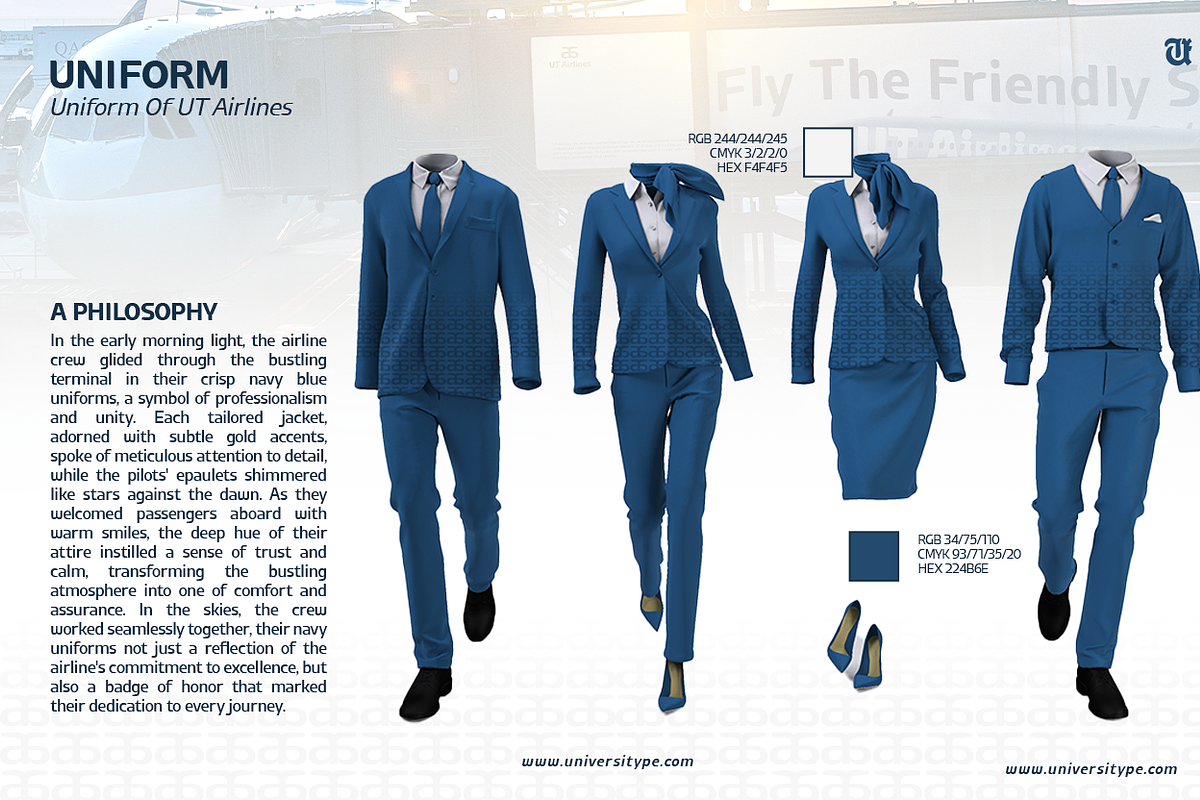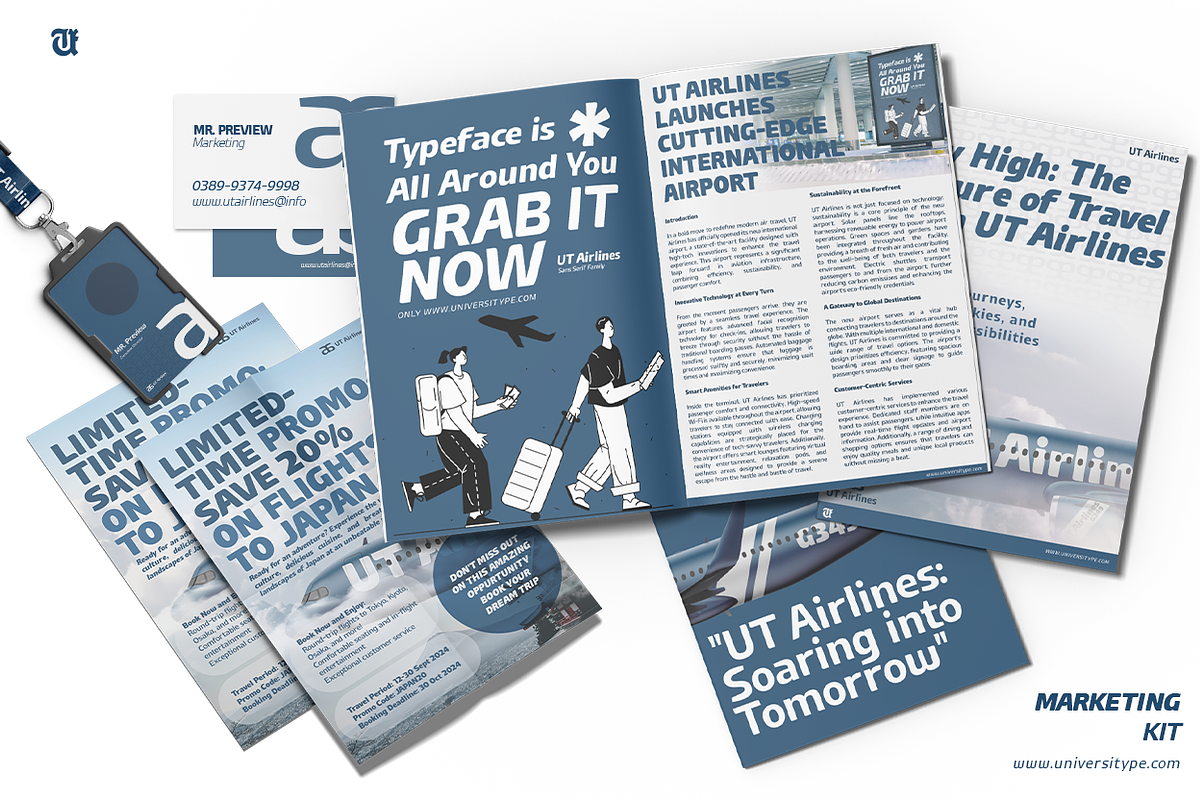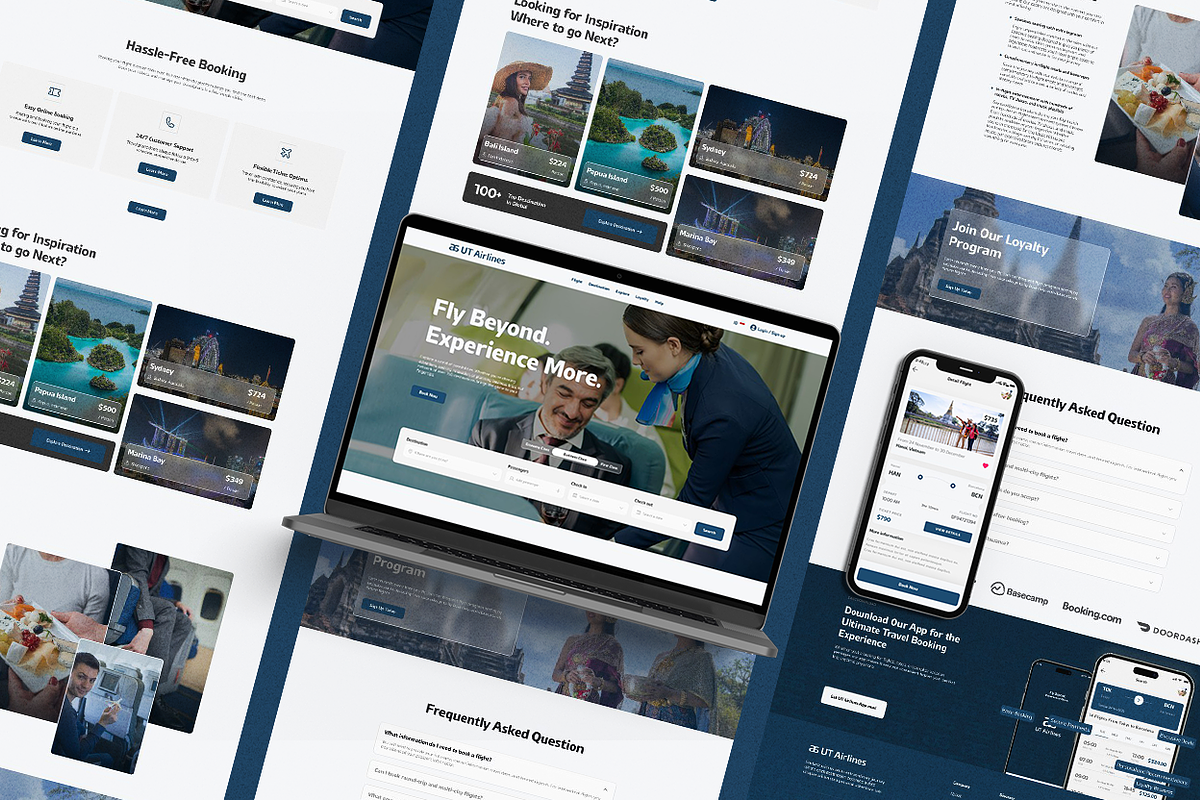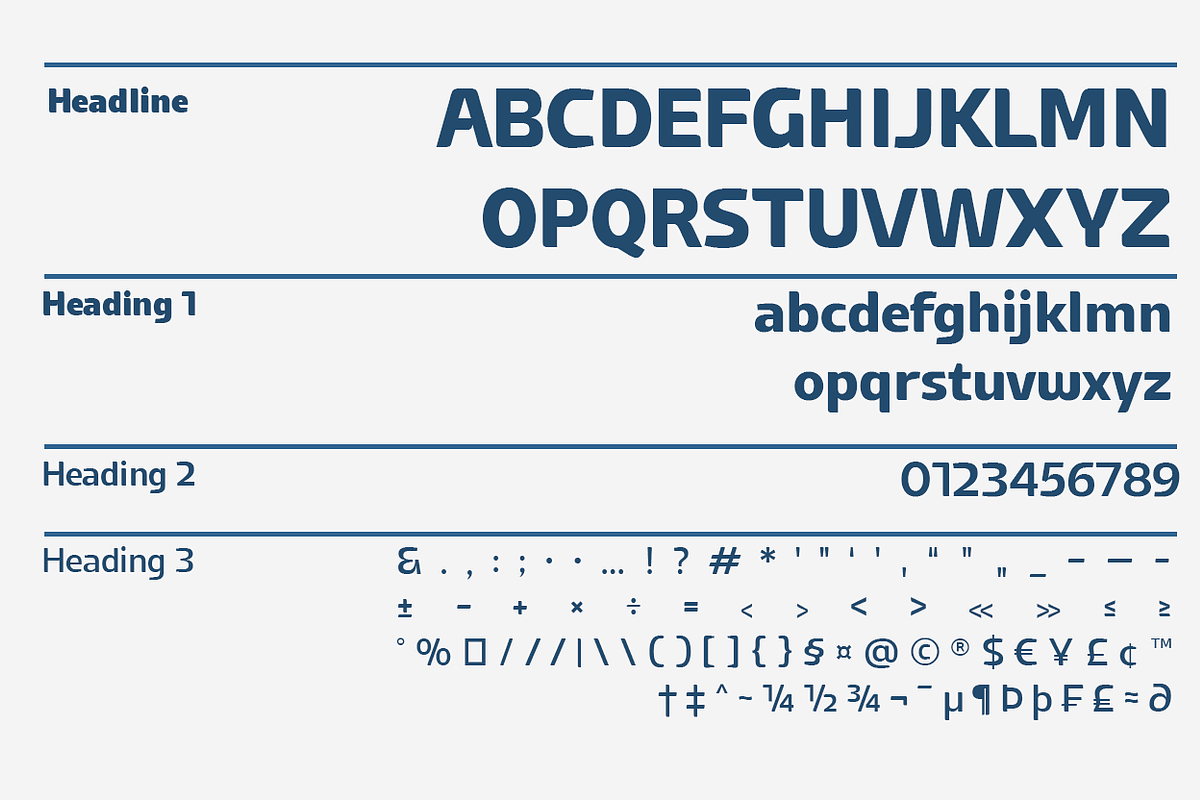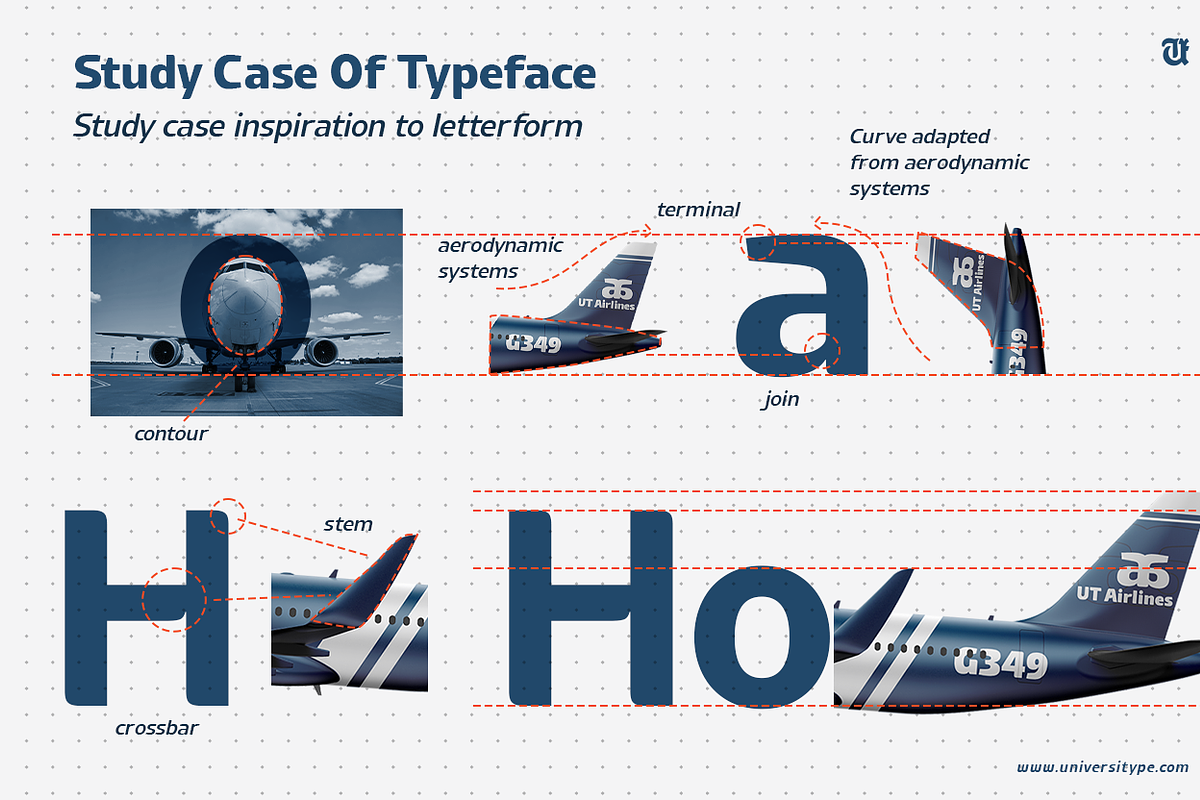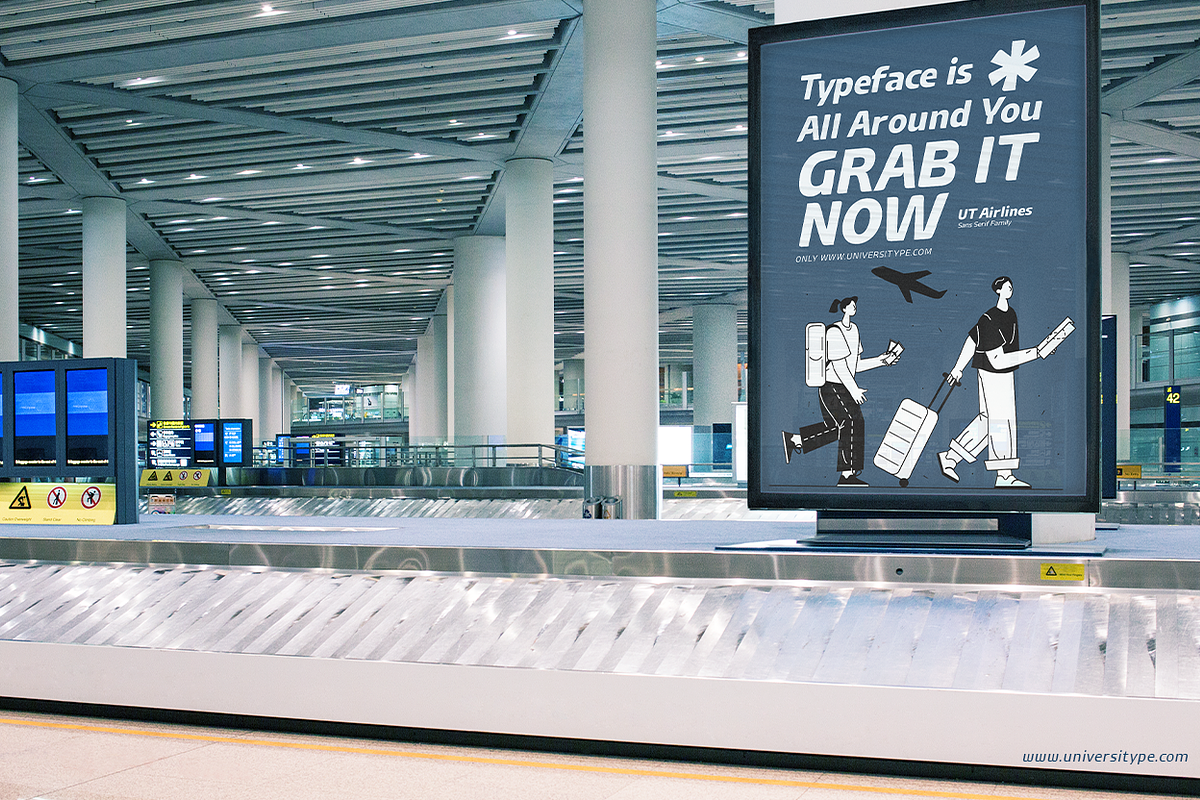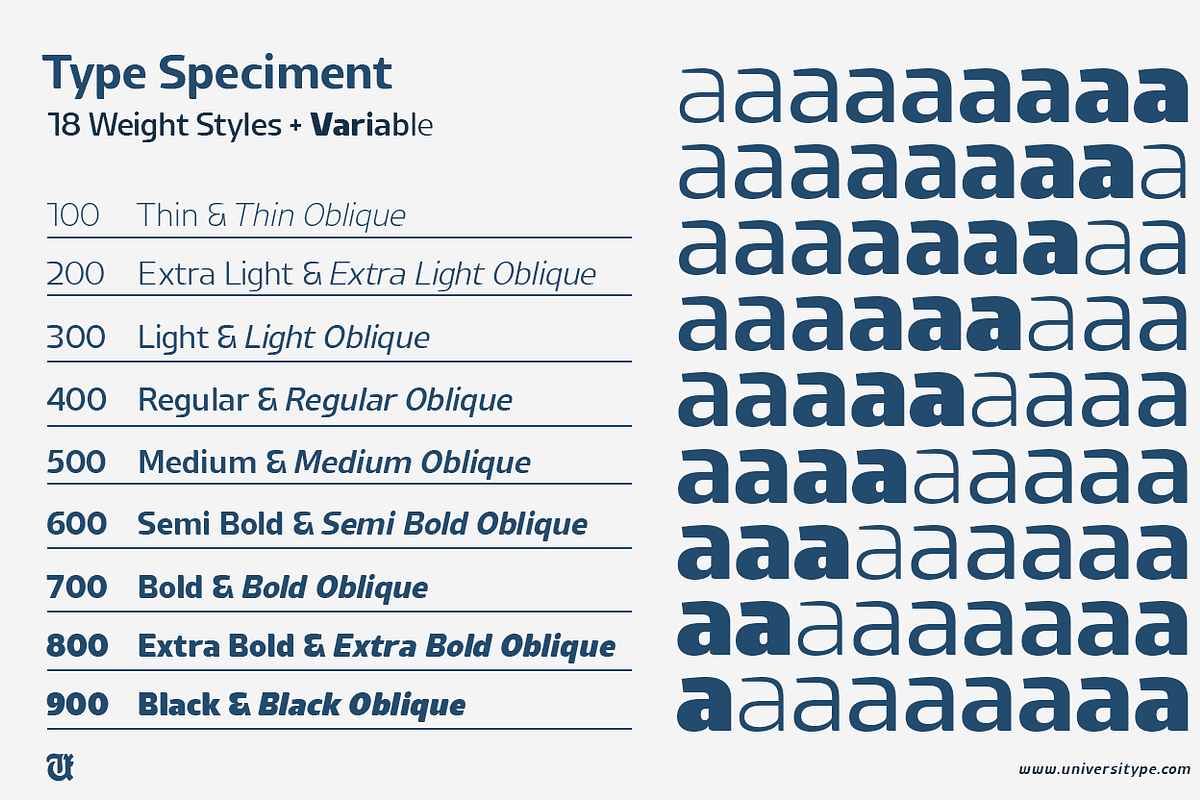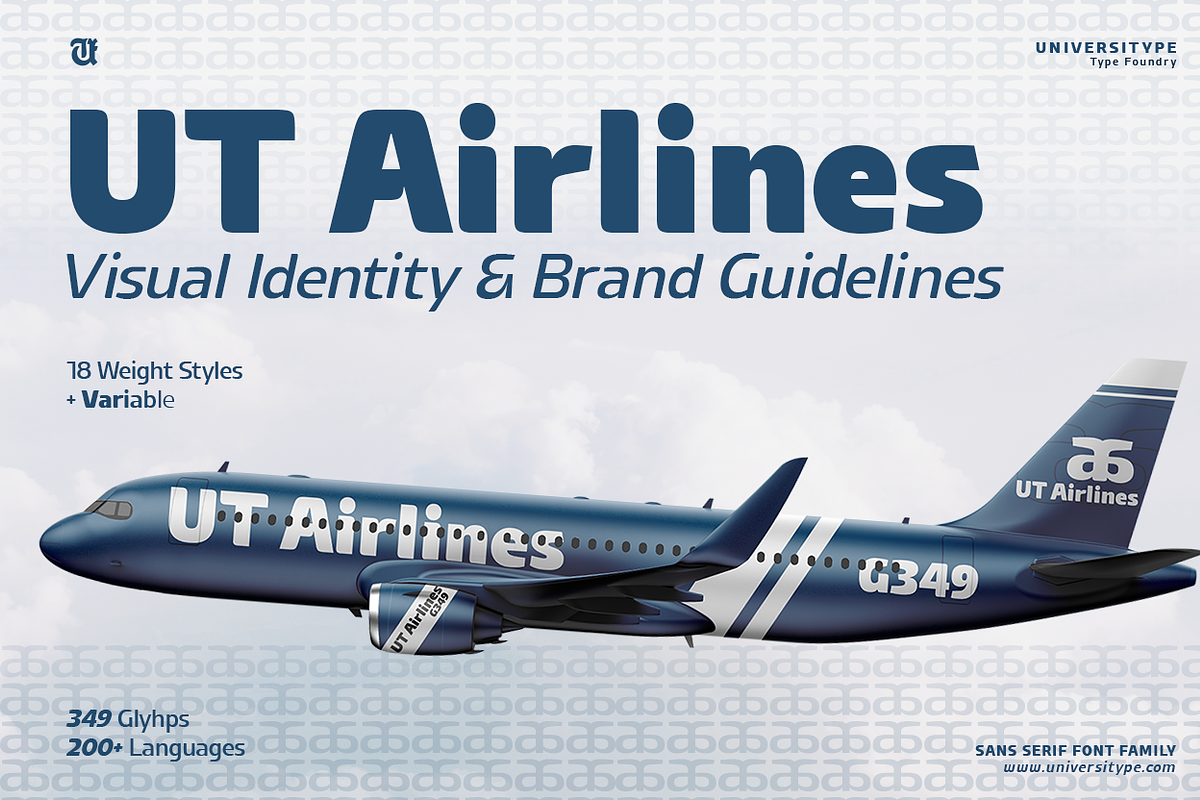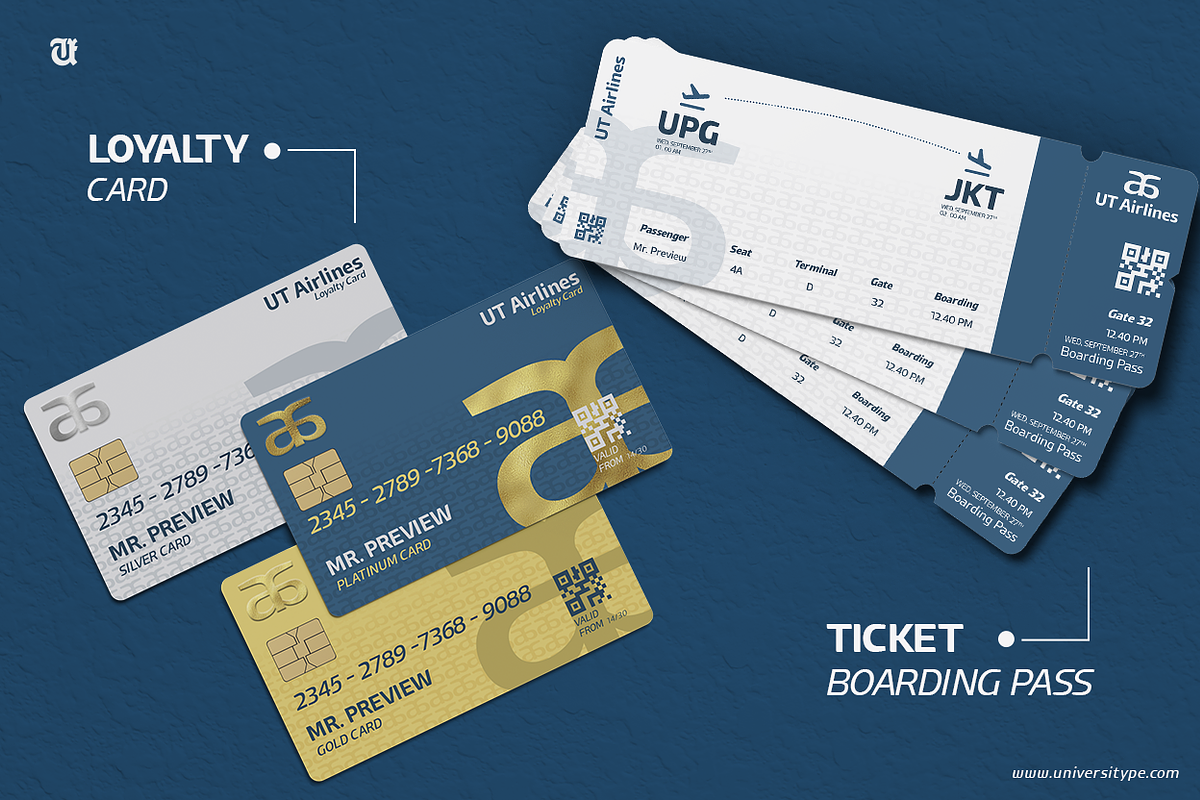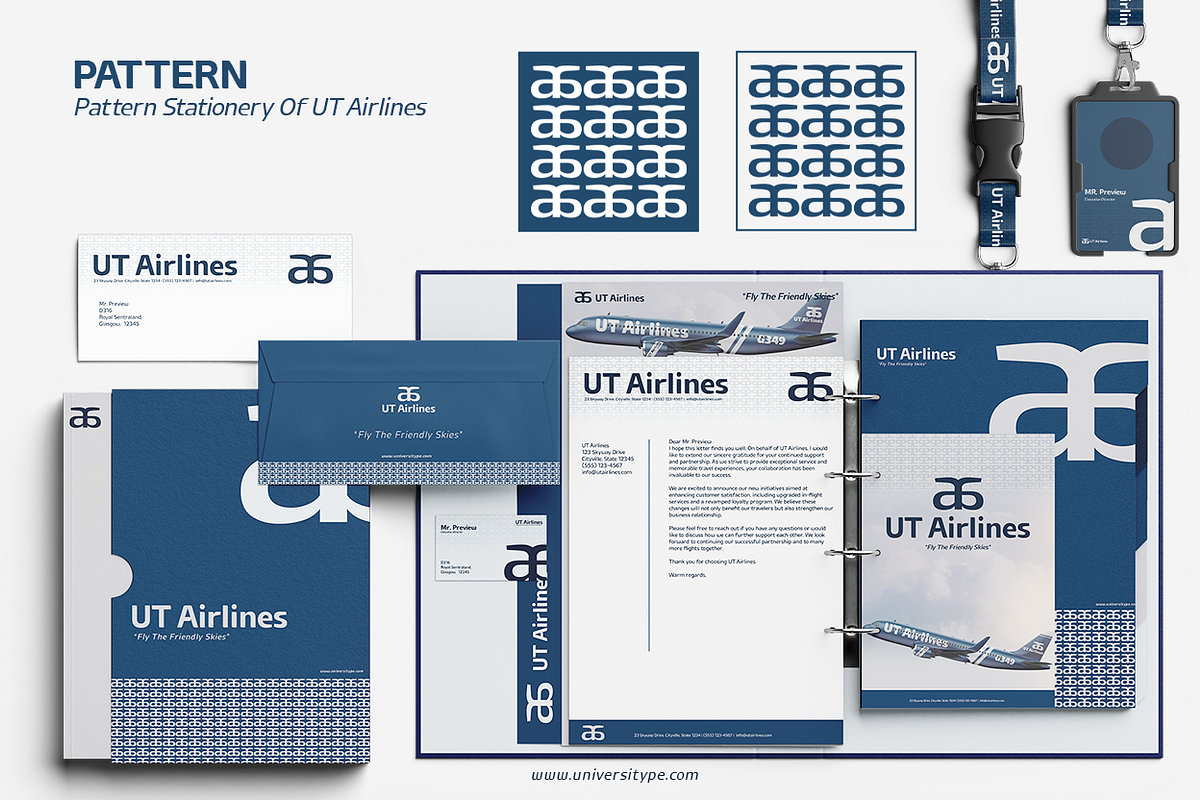
UT Airlines - Humanist Sans Serif
Introducing UT Airlines, the ultimate typeface that brings the power and precision of aviation to your design projects. Inspired by the sleek contours and robust strength of modern aircraft, UT Airlines is more than just a font – it’s a statement of boldness, masculinity, and cutting-edge design. Perfectly suited for brands that want to convey authority and innovation, this typeface is your ticket to creating a commanding visual identity.
UT Airlines features strong, geometric lines and assertive characters that embody the spirit of aviation. Every letter is meticulously crafted to reflect the aerodynamic efficiency and industrial strength of aircraft, making this font ideal for industries that value precision and reliability. Whether you’re designing for an airline, aerospace company, or a brand that wants to evoke the feeling of soaring above the competition, UT Airlines is your go-to typeface.
What sets UT Airlines apart is its versatility. While it shines in the aviation and aerospace sectors, its bold design and distinctive character make it equally effective for corporate identities, luxury brands, and high-tech companies. The typeface’s robust presence ensures that your brand’s message will be clear, confident, and impactful.
In a world where first impressions matter, UT Airlines gives your brand the lift it needs to stand out. Its unique blend of modern aesthetics and classic strength make it a timeless addition to any designer’s toolkit. Whether you’re creating logos, advertising materials, or digital content, this typeface will elevate your designs to new heights.
- Bold and Masculine: Strong geometric lines that convey power and confidence.
- Aviation-Inspired Design: Reflects the sleek, robust aesthetics of modern aircraft.
- Versatile Applications: Ideal for airlines, corporate identities, luxury brands, and more.
- High Visibility: Ensures your brand stands out in both digital and print media.
Elevate your brand with UT Airlines – the typeface that embodies the bold, masculine spirit of the skies. Whether you’re aiming for a sleek, modern look or a powerful, authoritative feel, this font delivers with precision and style. Take your design to new heights with UT Airlines today!